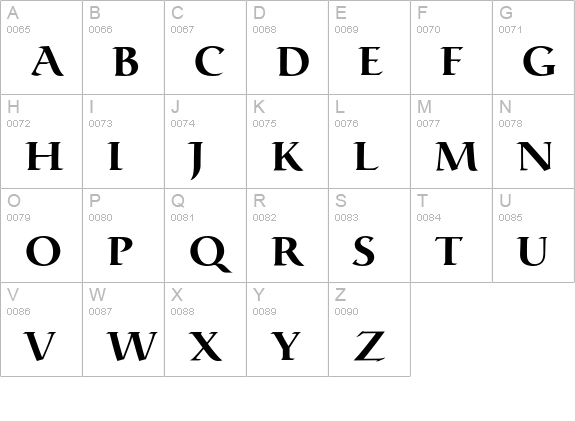
Catull Expert BQ Medium OsF Font Details
Catull Expert BQ Medium OsF is a balanced, medium-weight variant in the Catull typeface family \xE2\x80\x94 well suited to sub-headlines, navigation, and balanced editorial work.
Catull Expert BQ Medium OsF font is a versatile and elegant typeface that exudes sophistication and style. With its medium weight and expertly crafted design, this font is perfect for a wide range of design projects, from branding to editorial layouts. What sets Catull Expert BQ Medium OsF font apart is its attention to detail and readability, making it a top choice for professionals looking to make a statement with their typography. The clean lines and balanced proportions of this font make it a beautiful choice for both print and digital applications. And the best part? Catull Expert BQ Medium OsF font is available for free download at FontsMarket.com, making it accessible to designers of all levels. Whether you're working on a personal project or a client's design, this font is sure to elevate your work and leave a lasting impression.